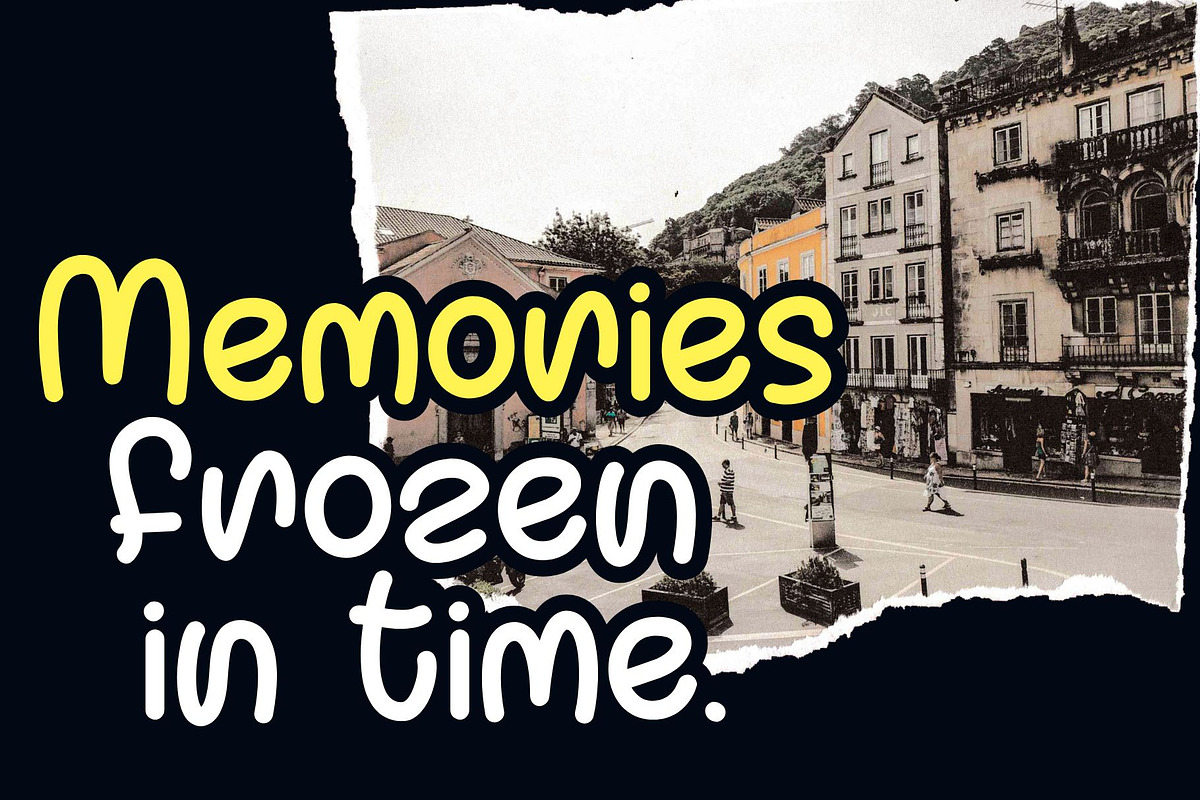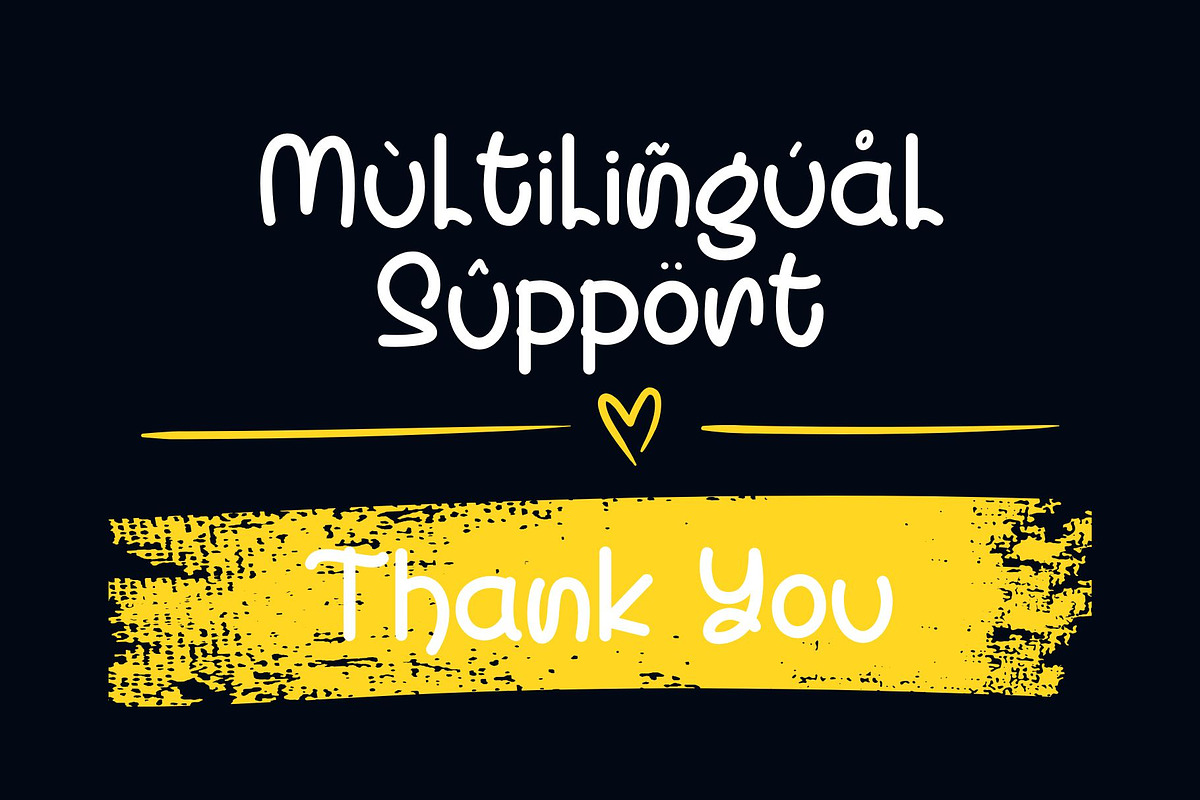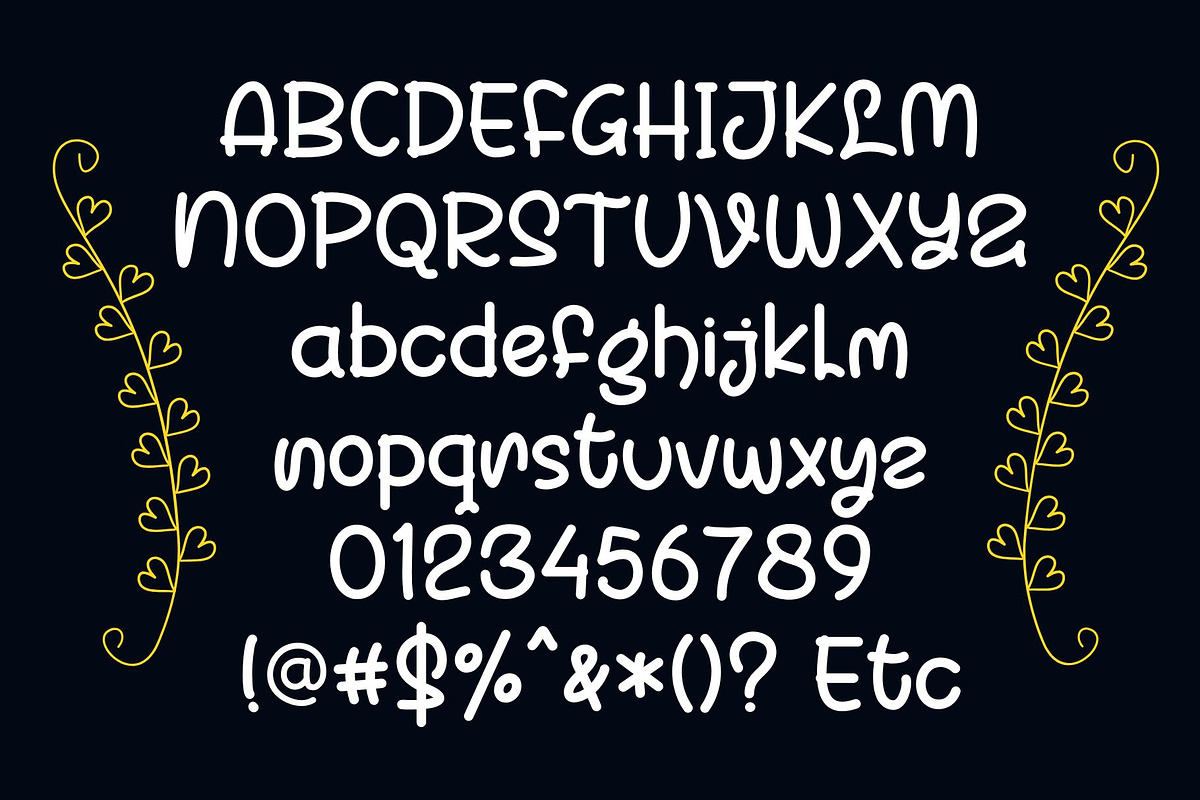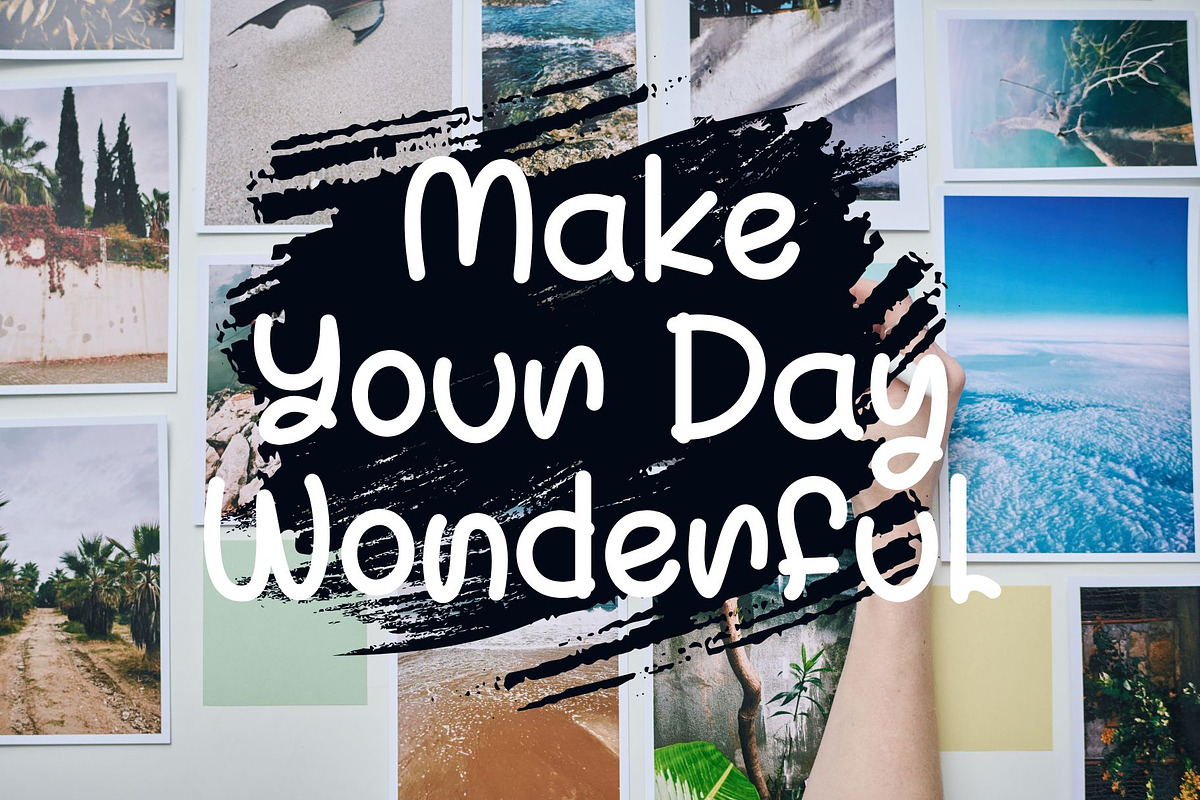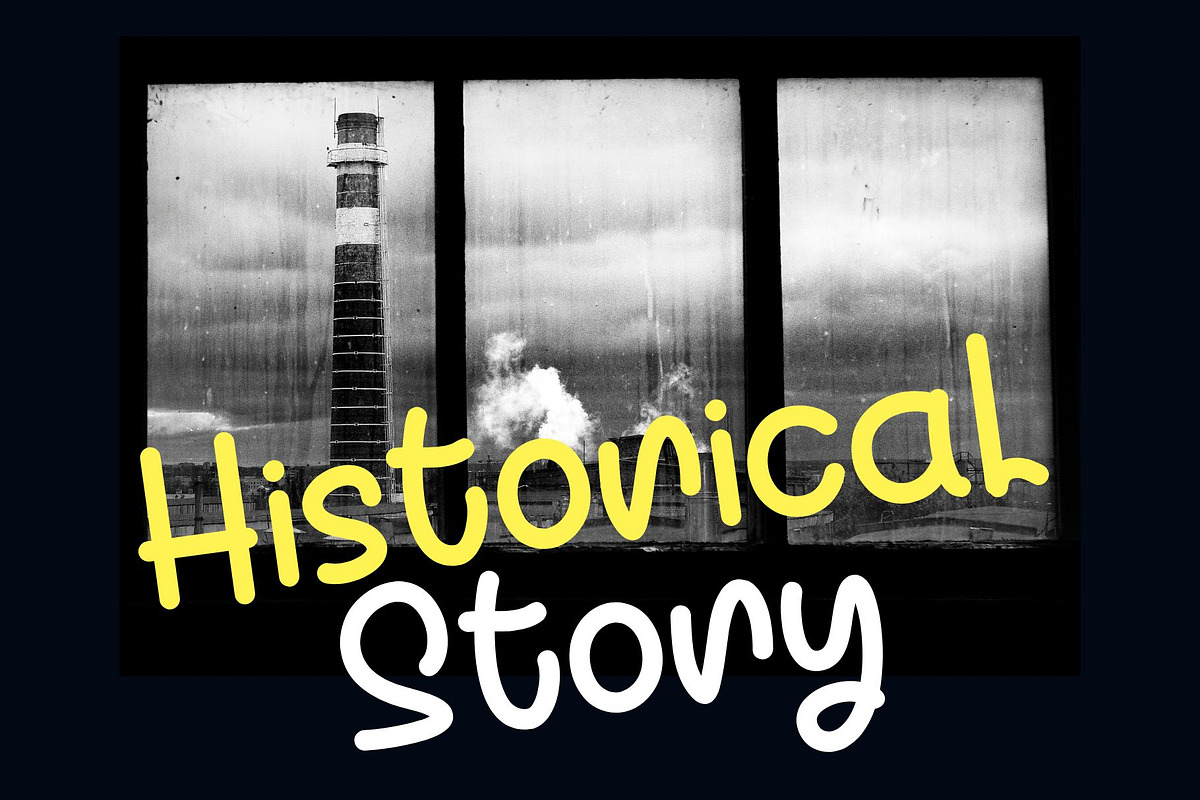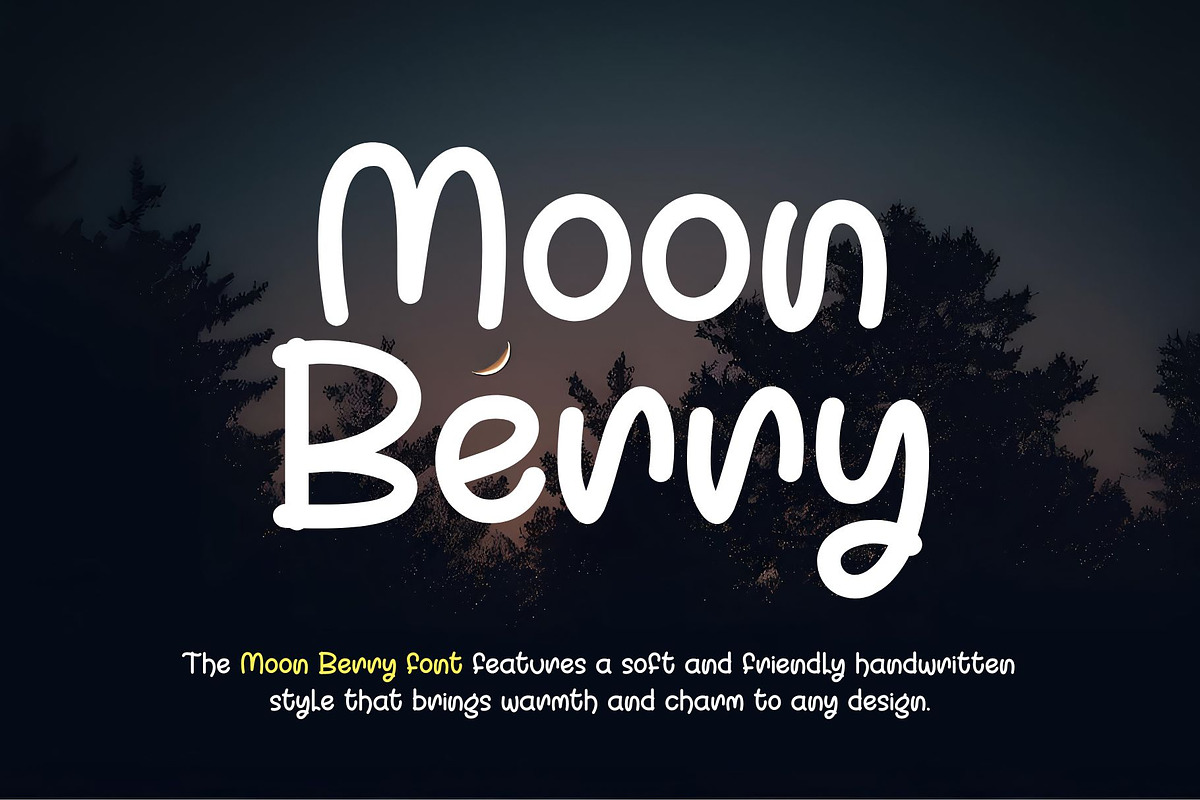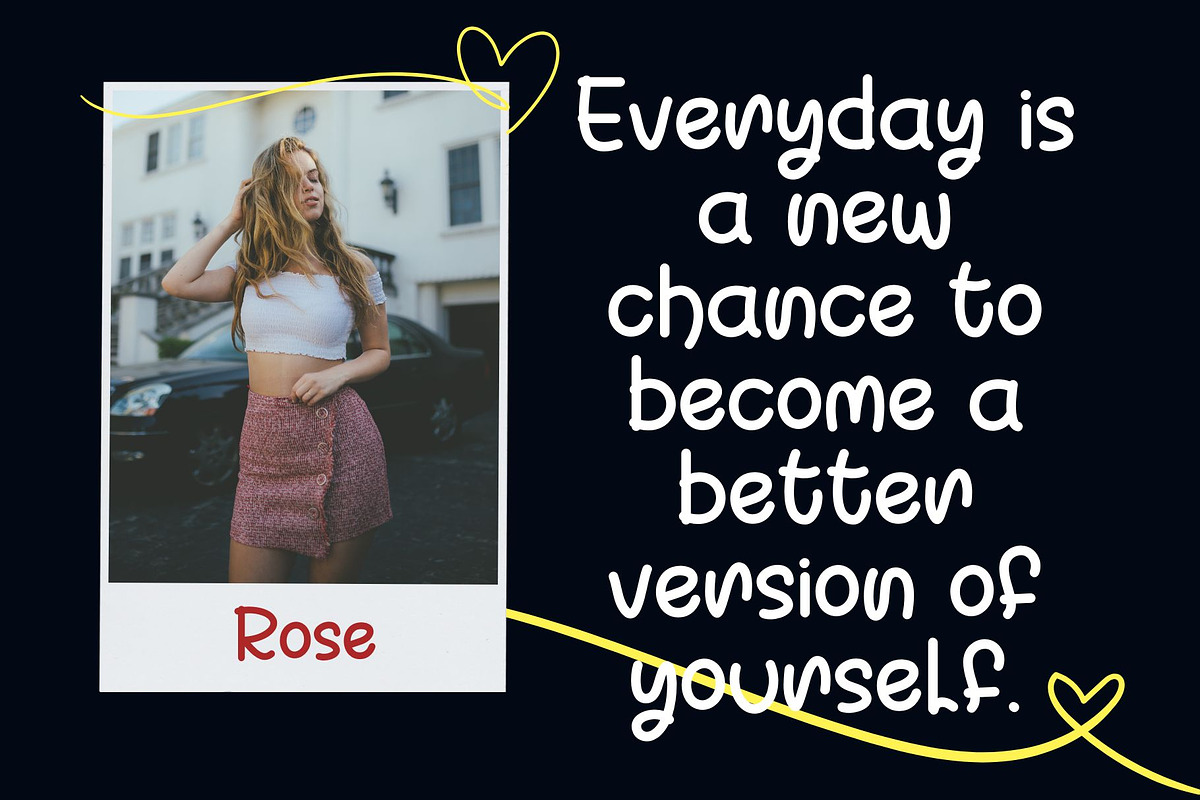
Moon Berry
The Moon Berry font features a soft and friendly handwritten style that brings warmth and charm to any design. With its smooth, rounded shapes and playful character, this font is perfect for creative project such as logos, product packaging, inspirational quotes, and social media designs. Its casual yet professional look makes it ideal for nature-themed, kids, or modern minimalist concepts.